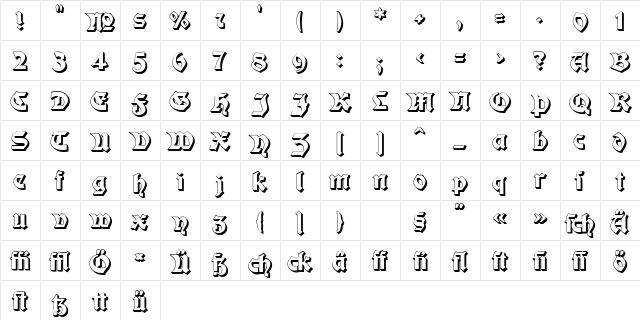
Moderne 3D Schwabacher Regular Free Font
Moderne 3D Schwabacher Regular
Foundry: Peter Wiegel
Designer: Peter Wiegel
Design Context for Moderne 3D Schwabacher
Moderne 3D Schwabacher is a composed and adaptable typeface that performs quietly and consistently across a wide range of design contexts.